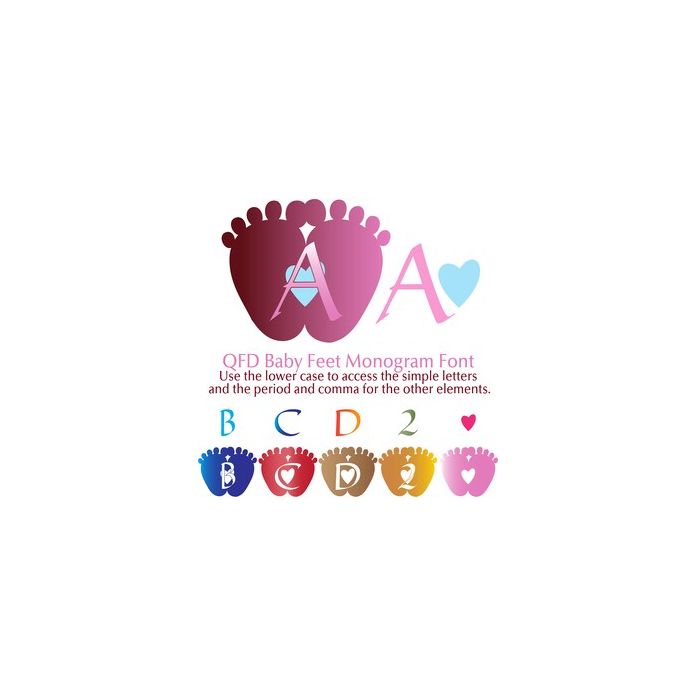
Use the lower case to access the plain letters and the period and comma to access the other elements. Perfect for gift tags, cards, pillows, invitations, wall art, t-shirts, mugs and anything else you can think of. See our detailed monograms tutorial by clicking the Instructions button. If you have any questions, please feel free to contact me!